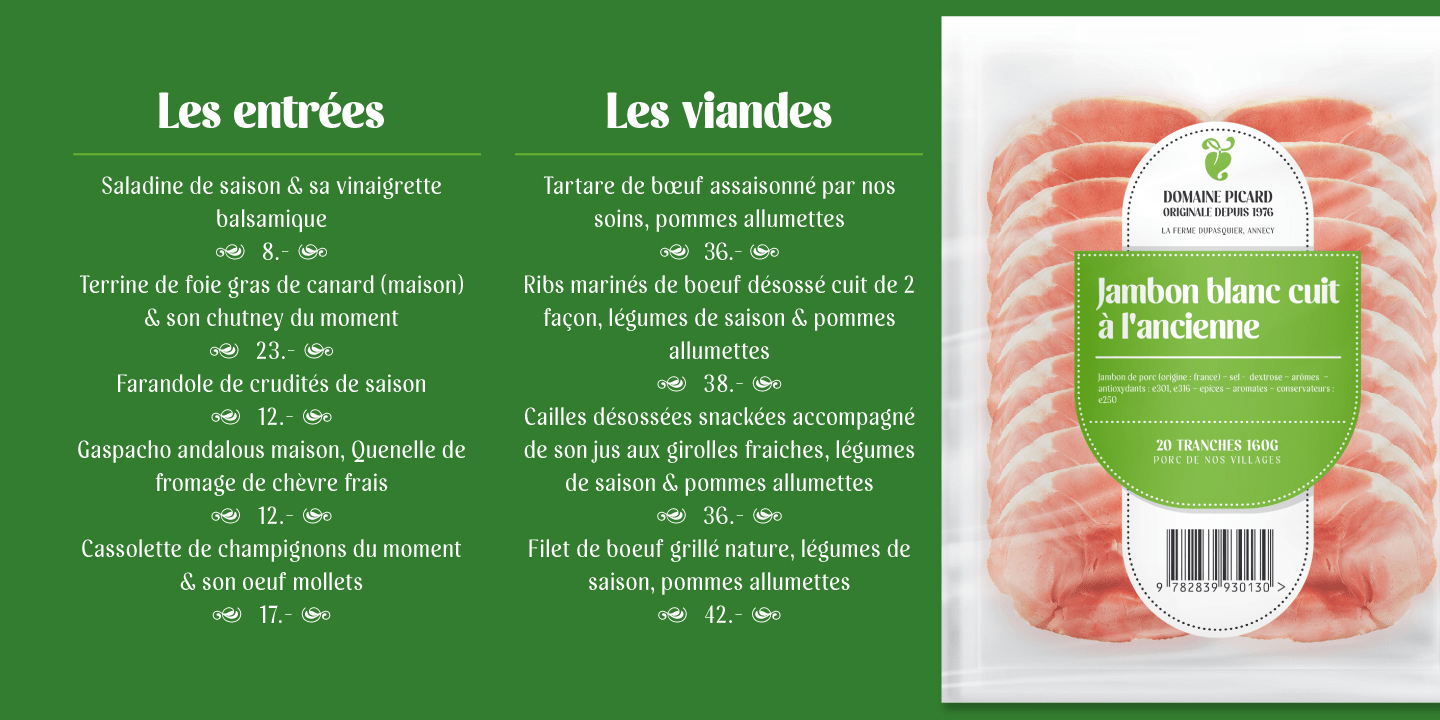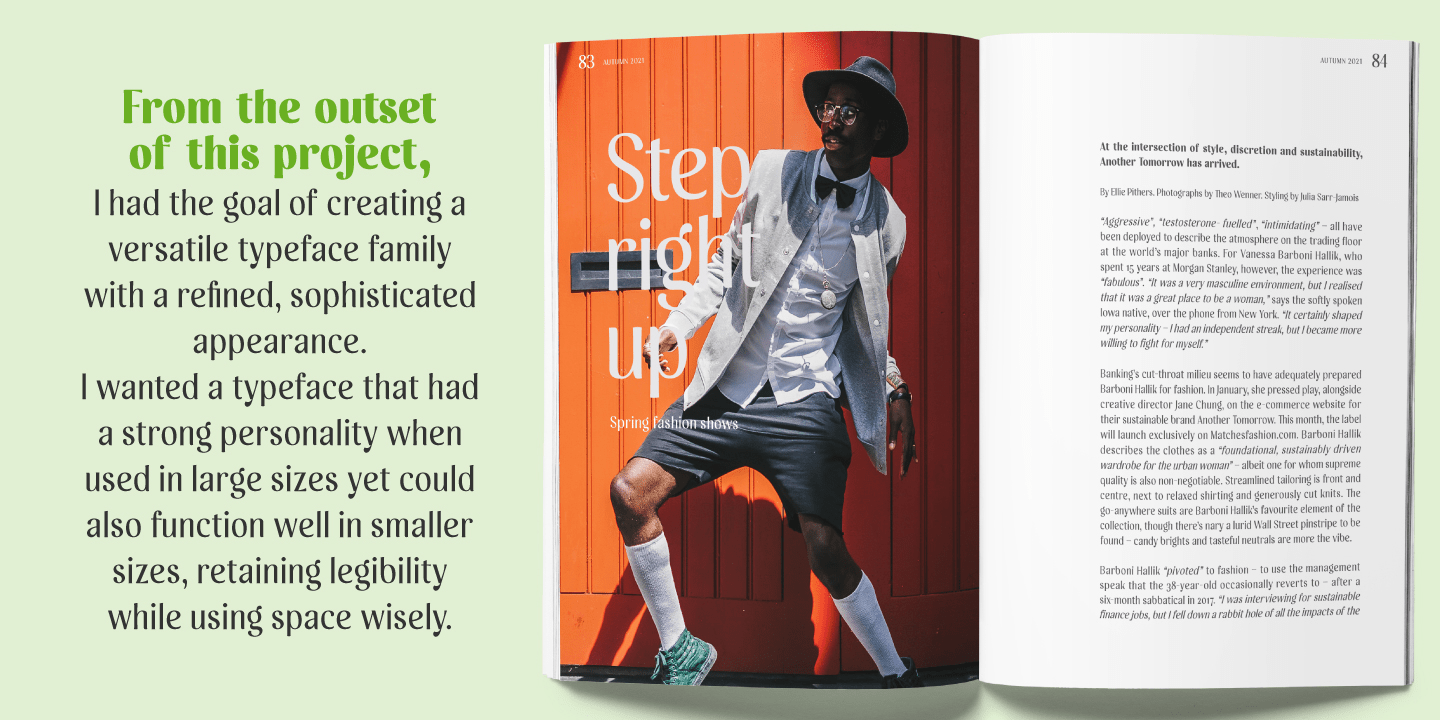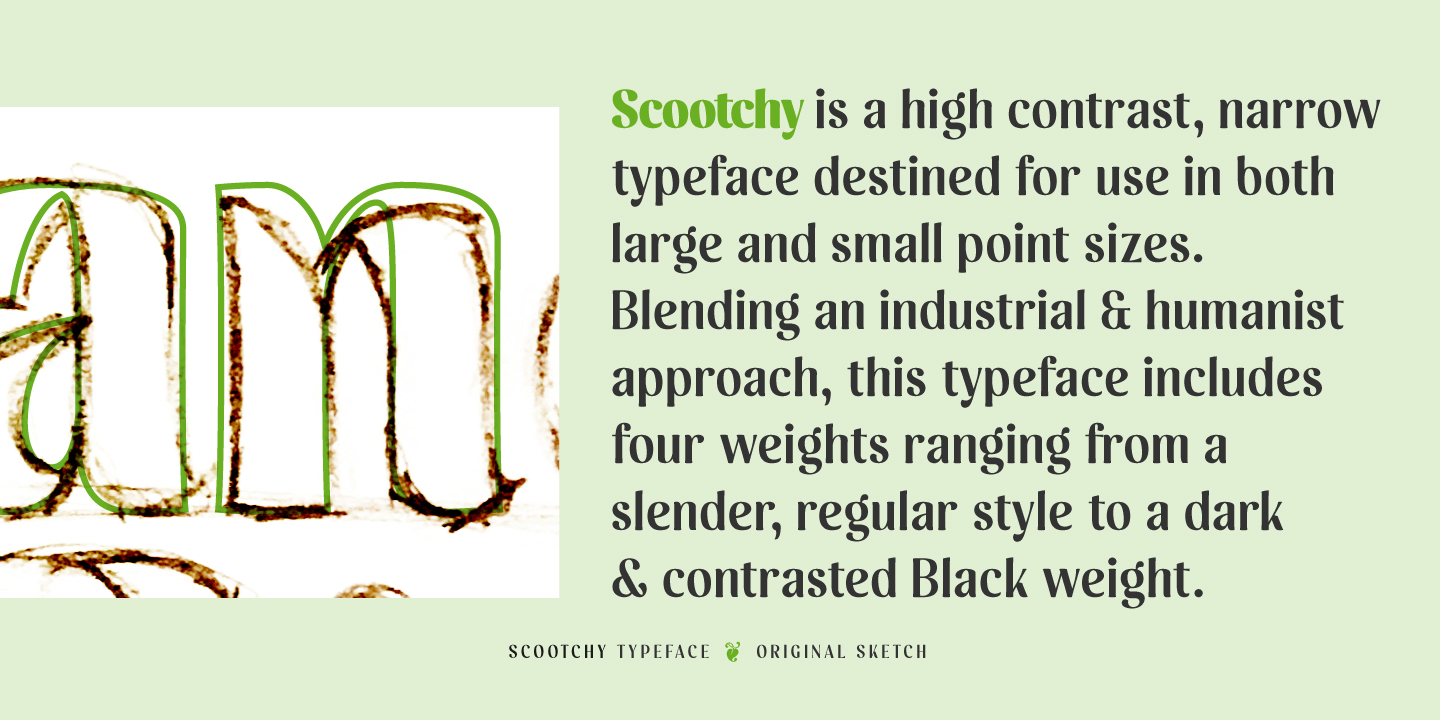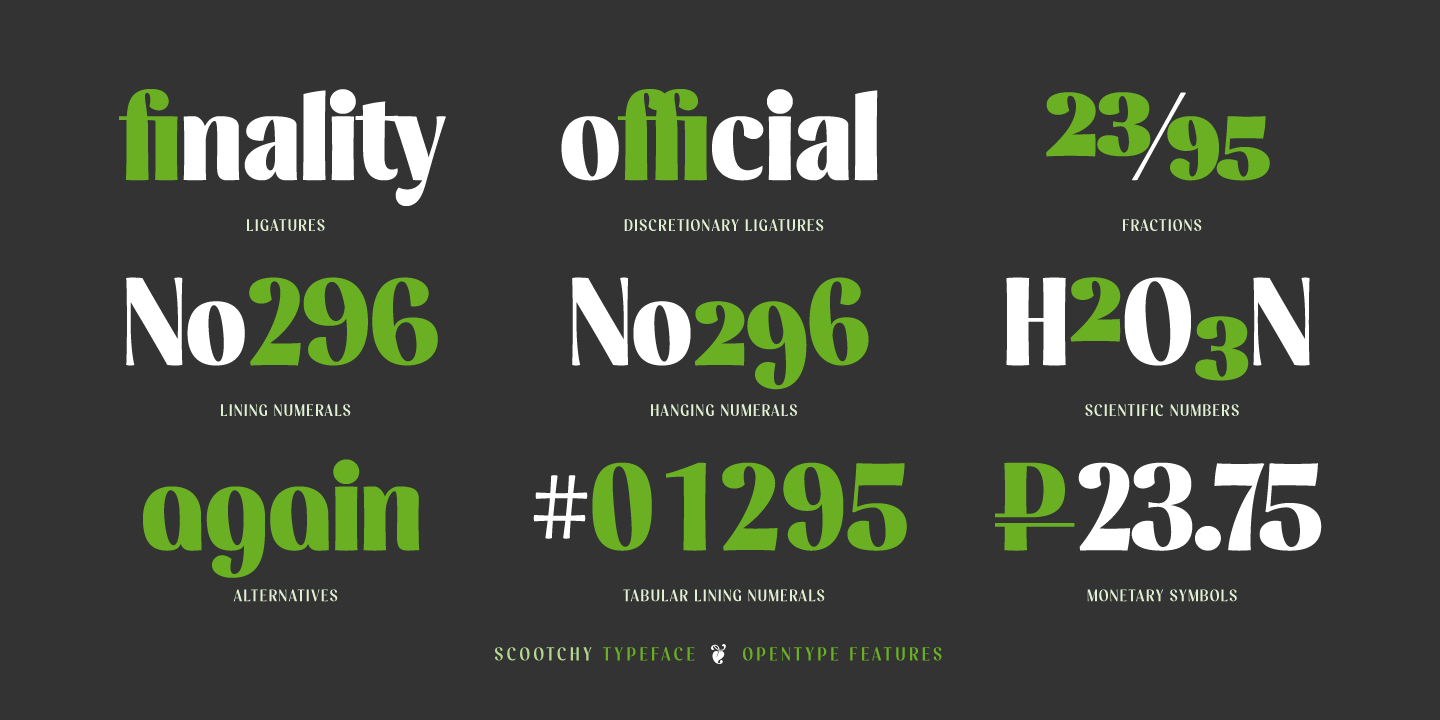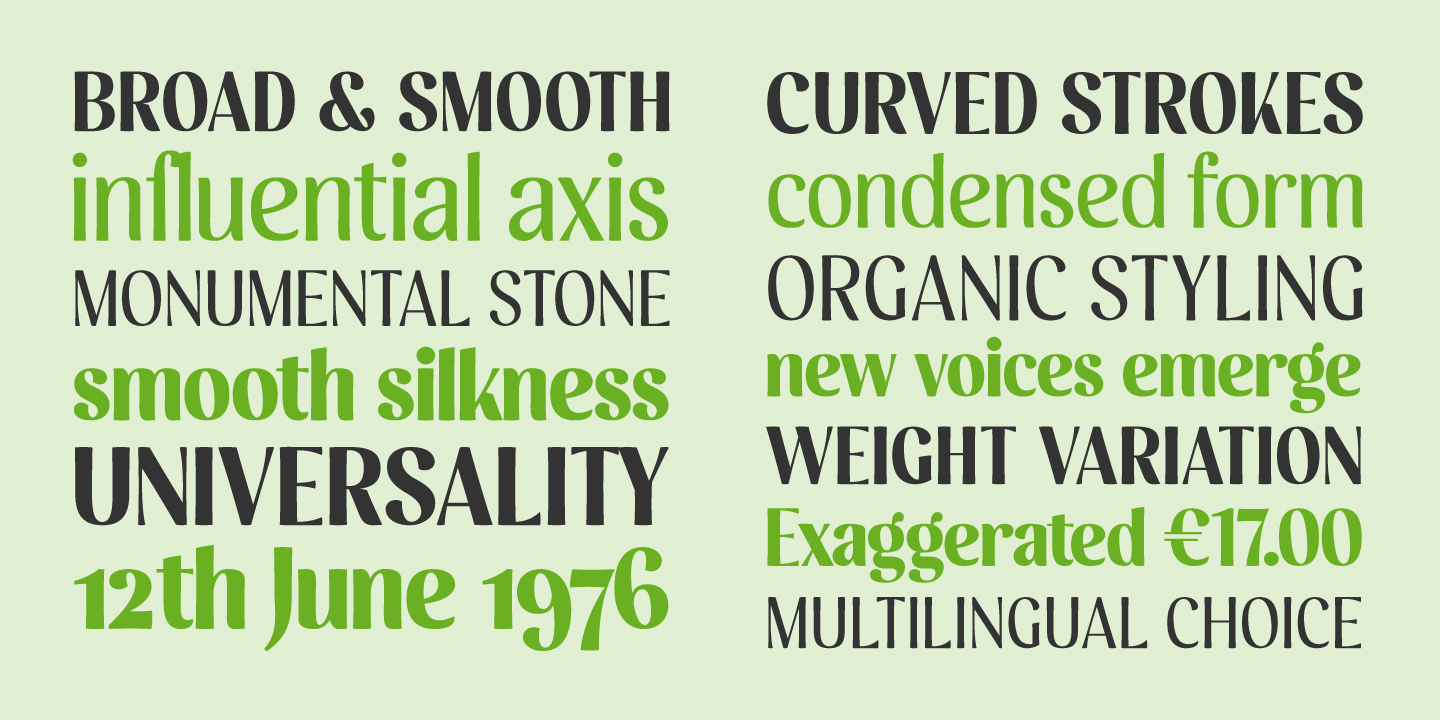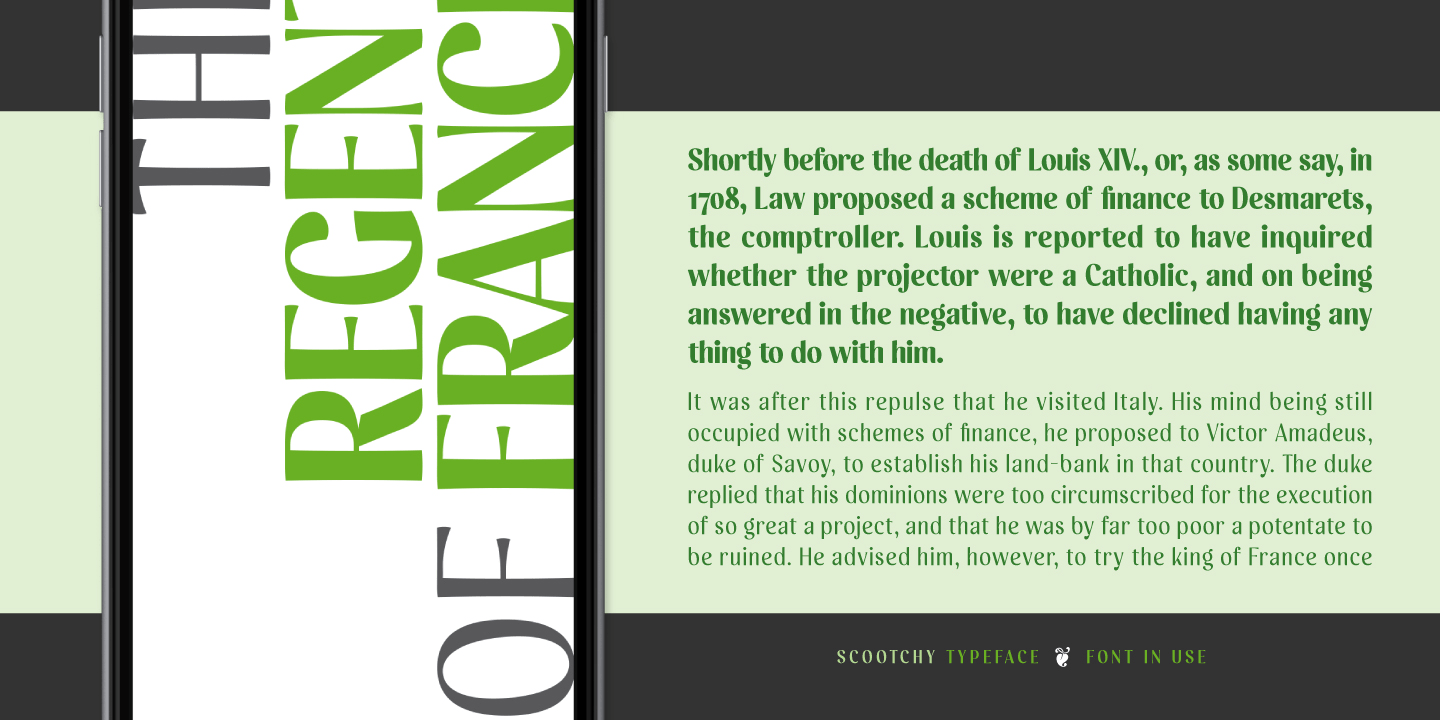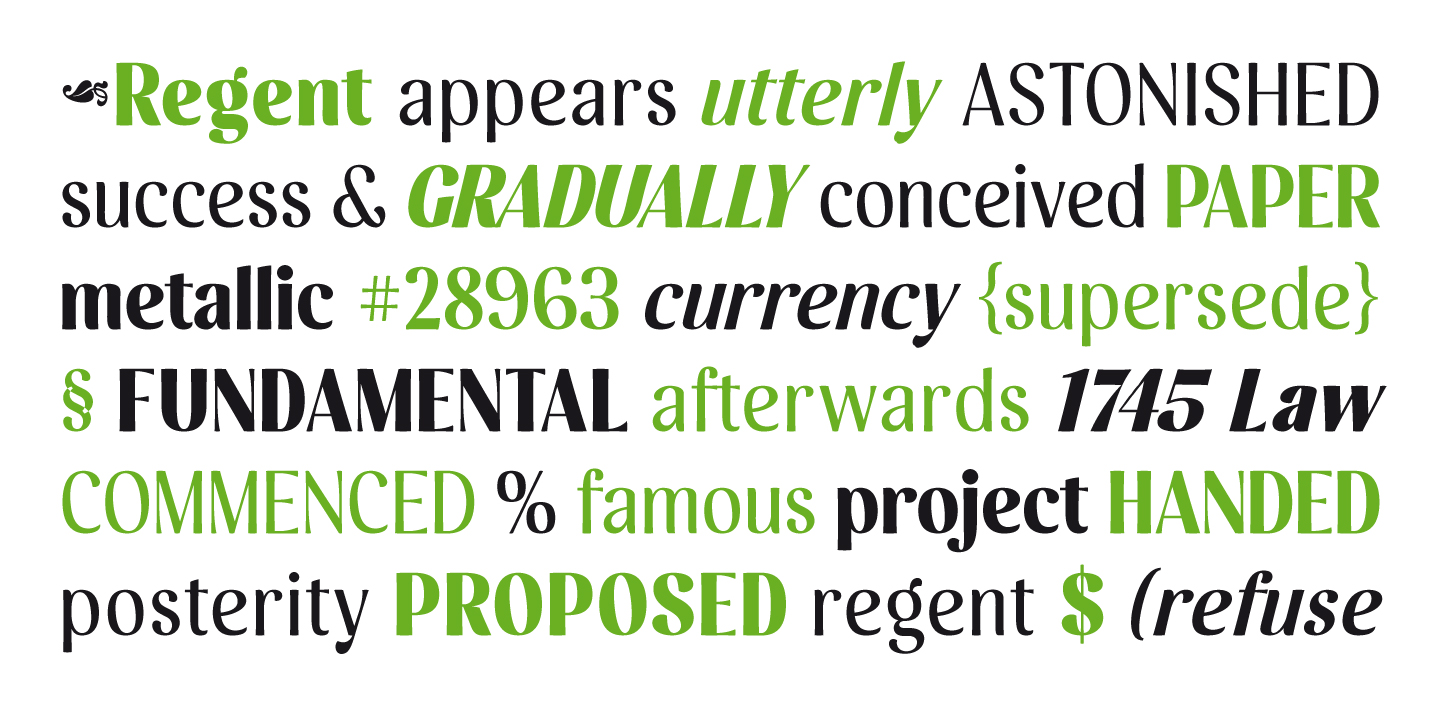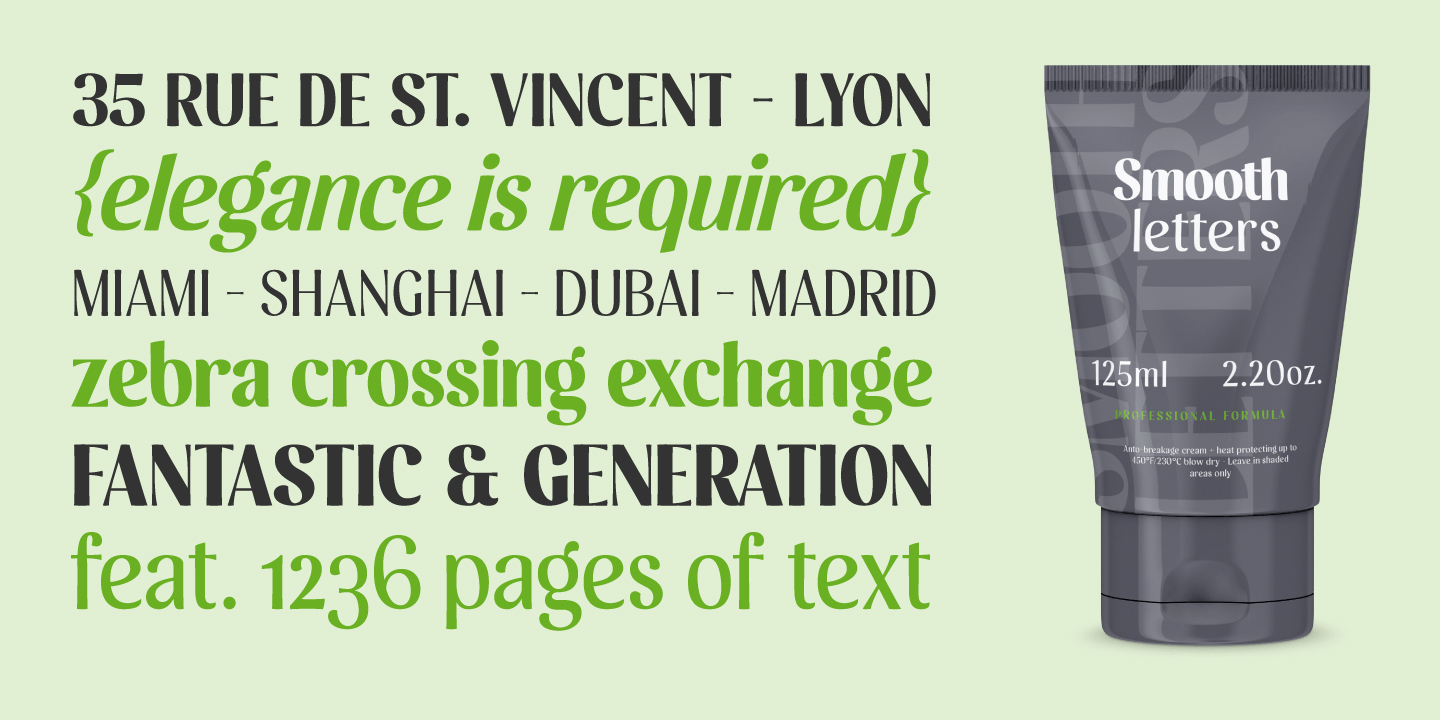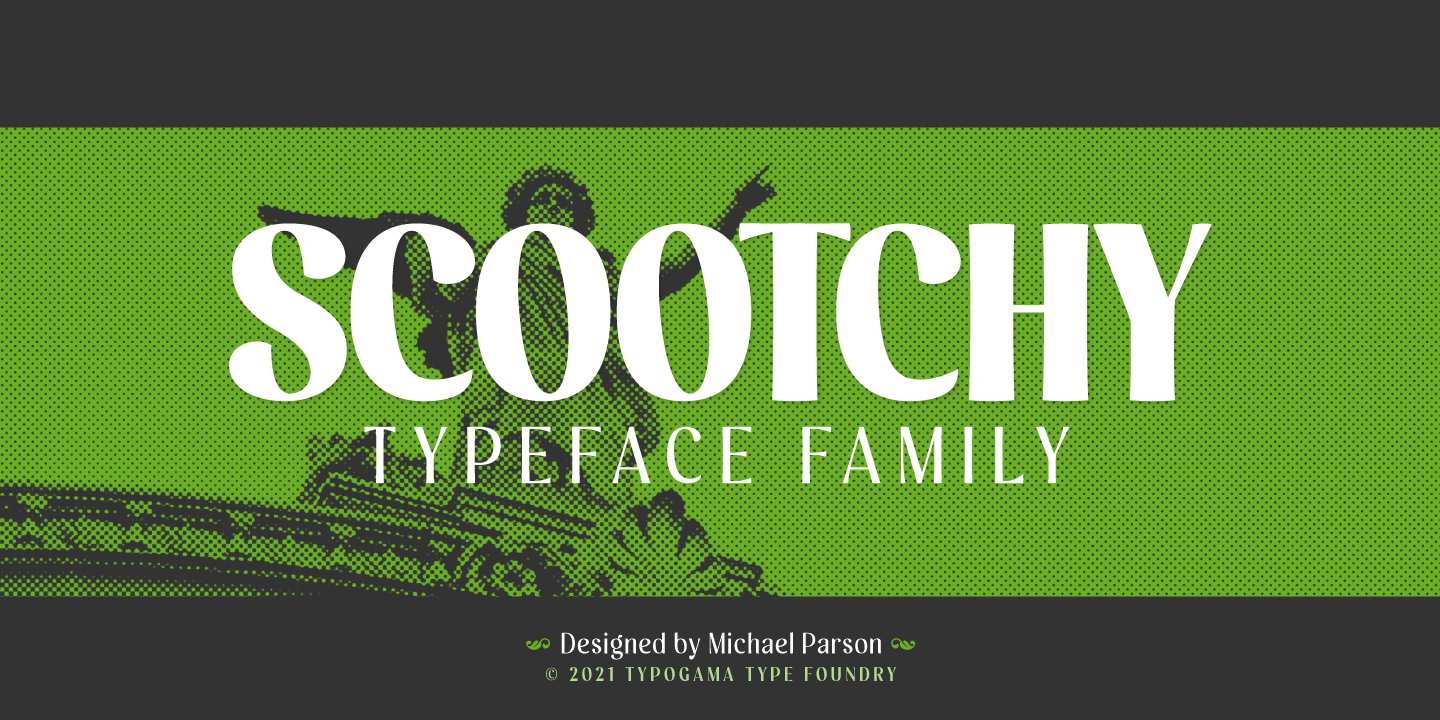
Scootchy Variable
About Scootchy Variable
Scootchy is a high contrast, narrow typeface destined for use in both large and small point sizes. Blending an industrial and humanist approach, this typeface includes four weights ranging from a slender, regular style to a dark and contrasted Black weight.…